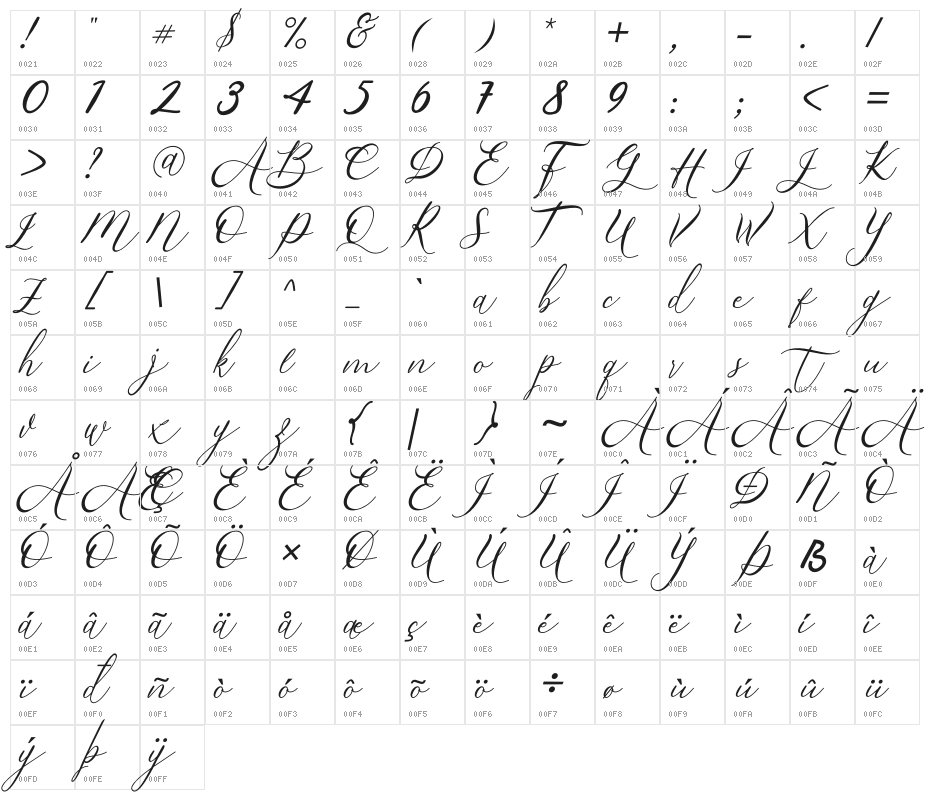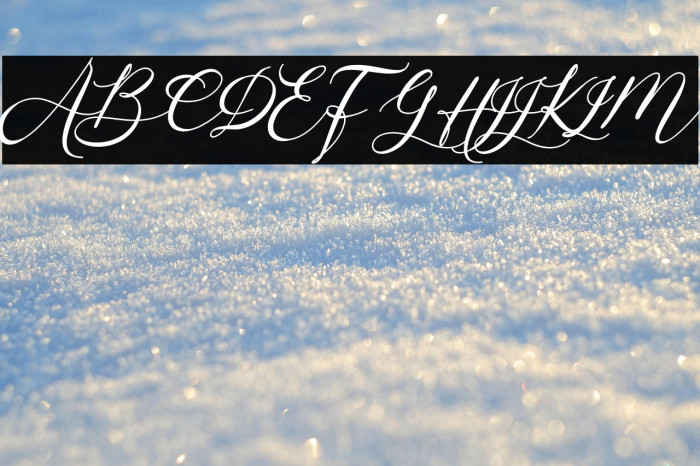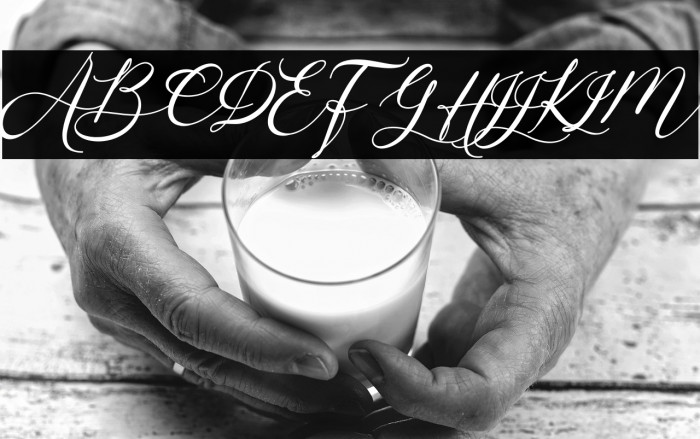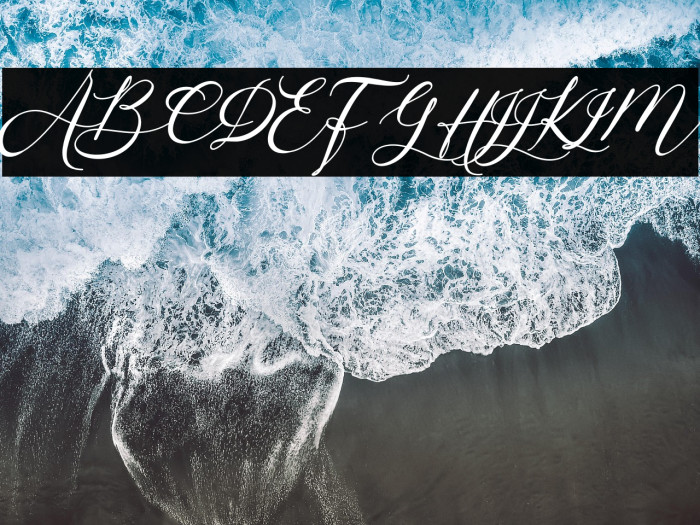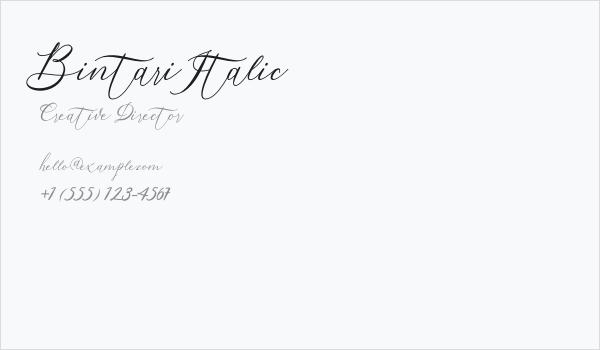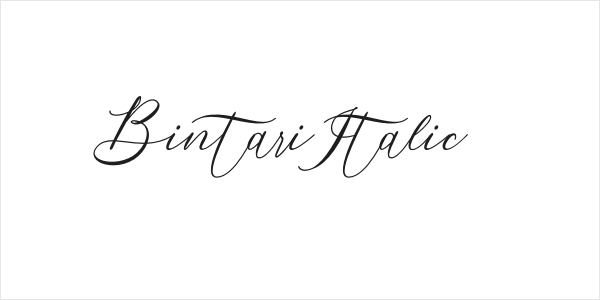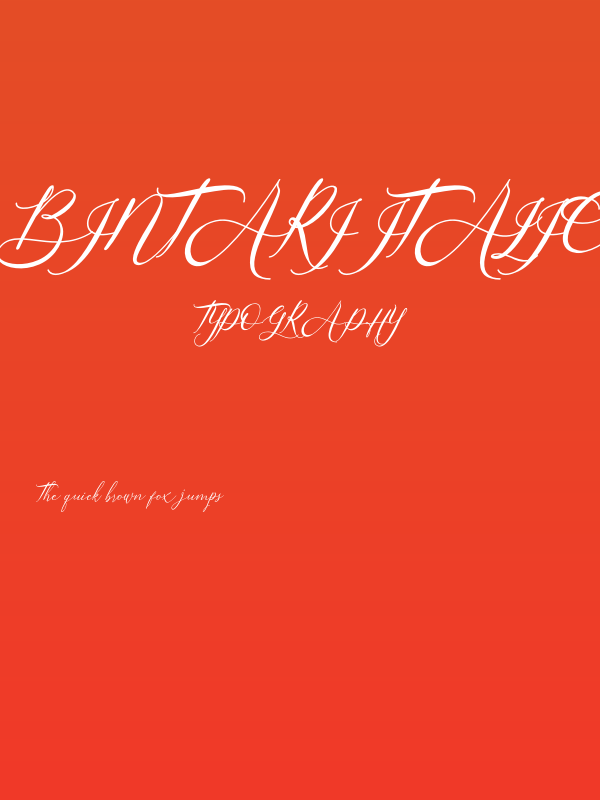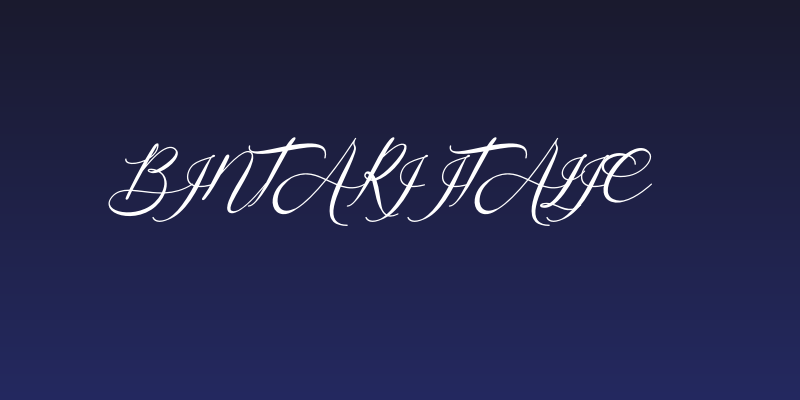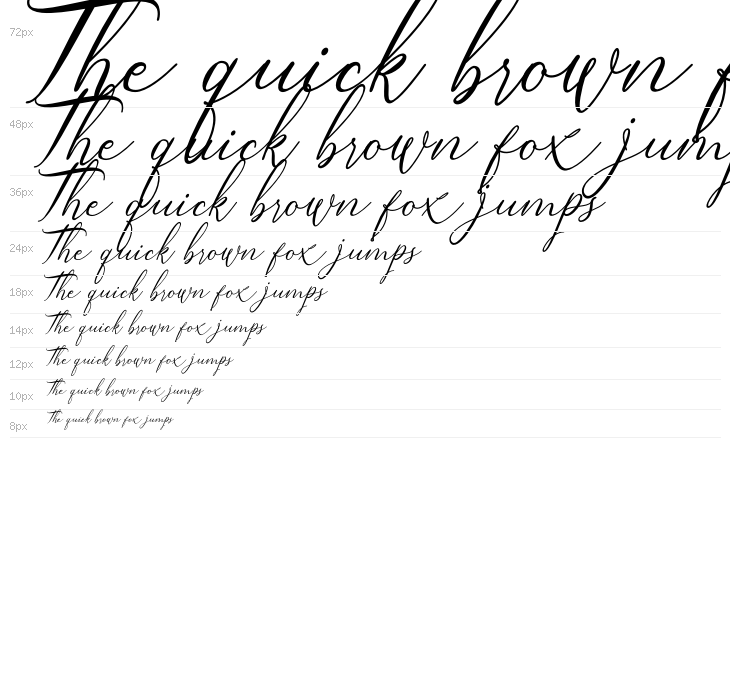
Bintari Italic Font
Bintari Italic Description
This elegant script font features fluid, cursive strokes that mimic the natural flow of handwriting. The uppercase letters are characterized by their sweeping, elongated lines and intricate loops, giving them a sophisticated and graceful appearance. The lowercase letters maintain a consistent style, with smooth connections between characters, enhancing readability while preserving the font's decorative nature. The numerals are designed with a similar flair, incorporating subtle curves and flourishes. Special characters are thoughtfully crafted to complement the overall aesthetic, making this font suitable for a variety of creative applications.